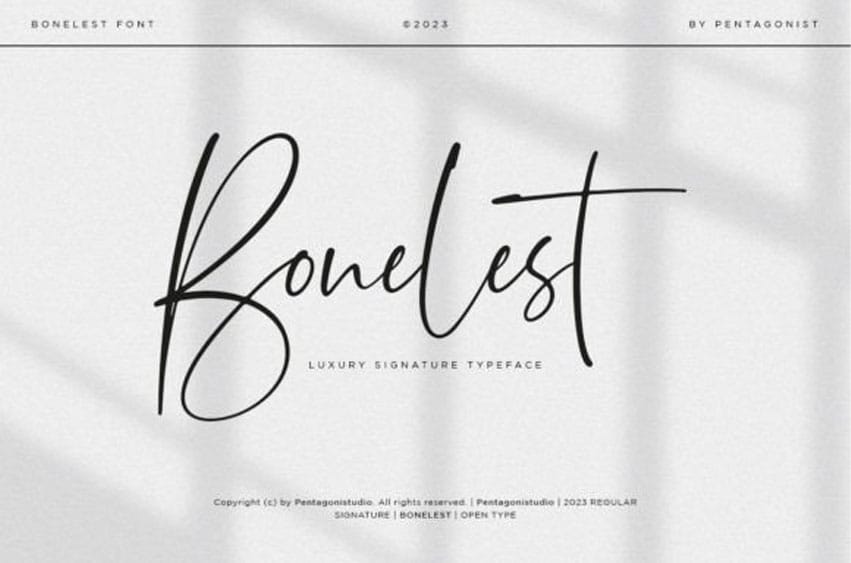
Bonelest Font is a romantic and deluxe calligraphy typeface with characters bringing a captivating flair.
The refined aspects of calligraphy suggest its use for creating invitations, event posters, theater tickets, and anything that requires a luxurious art form.